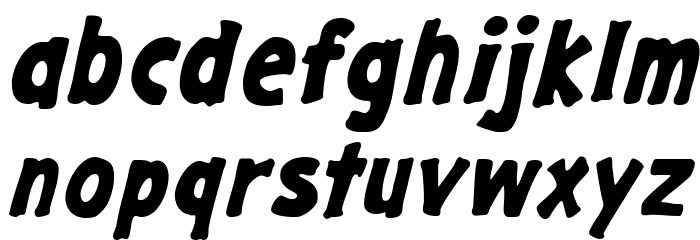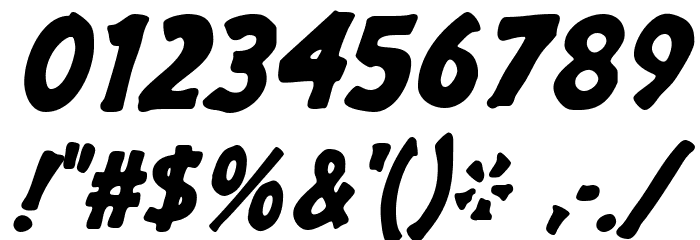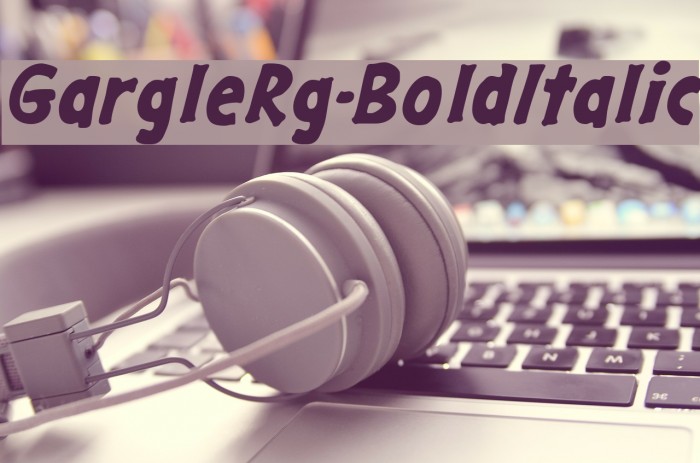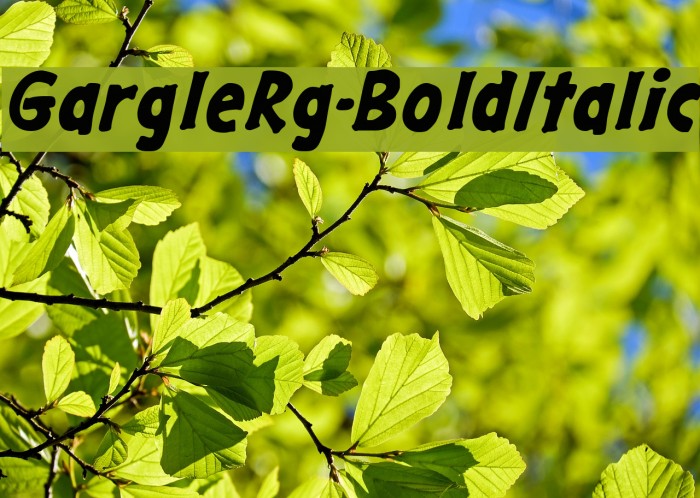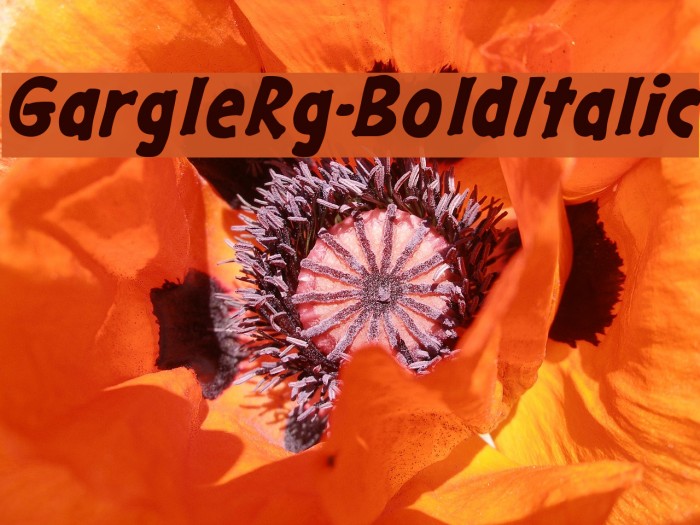
GargleRg-BoldItalic Font
This font features a bold and italicized style with a playful and dynamic appearance. The characters are slightly slanted, adding a sense of motion and energy. The strokes are thick and rounded, giving a robust and friendly feel. The uppercase and lowercase letters maintain a consistent style, with smooth curves and a uniform weight. The numbers and special characters follow the same design principles, ensuring a cohesive look across all glyphs. This font's unique style makes it stand out, suitable for projects that require a bold statement.
A bold, italicized font with a playful and dynamic style.
- Proposed Projects: Ideal for posters, logos, branding, and headlines that need a bold and energetic look.